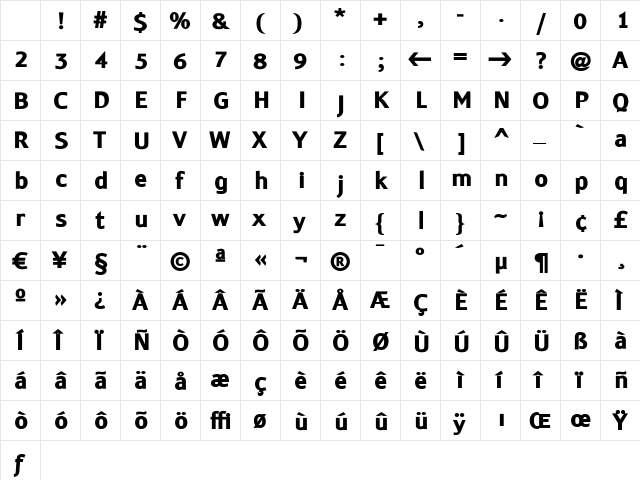
Complete Monem ExtraBold Regular glyph index. Displaying only characters natively supported by Monem ExtraBold Regular font.
Monem ExtraBold is a composed and adaptable typeface that performs quietly and consistently across a wide range of design contexts. Its bold stroke weight gives it real presence on the page.
Who designed the Monem ExtraBold Regular font?
This font was published by Gert Wiescher, Wiescher-Design, Munich, Germany, www.wiescher-design.de. Check the technical specs section for copyright and designer details.